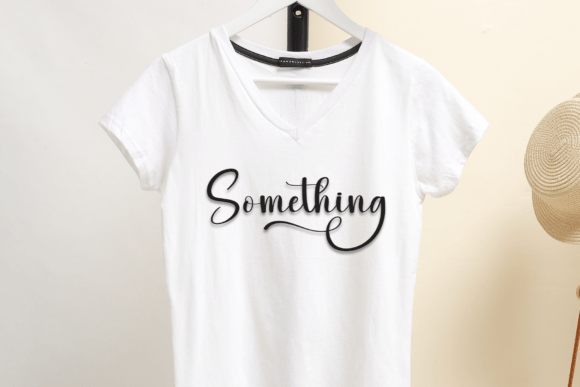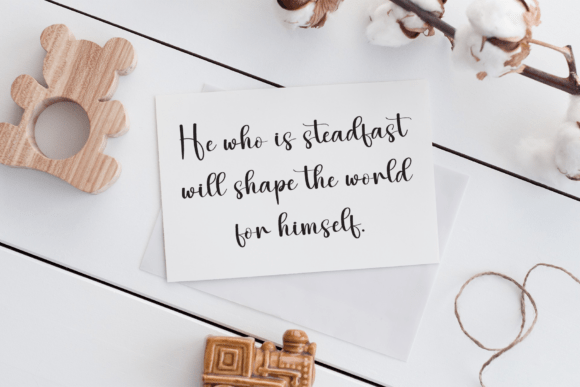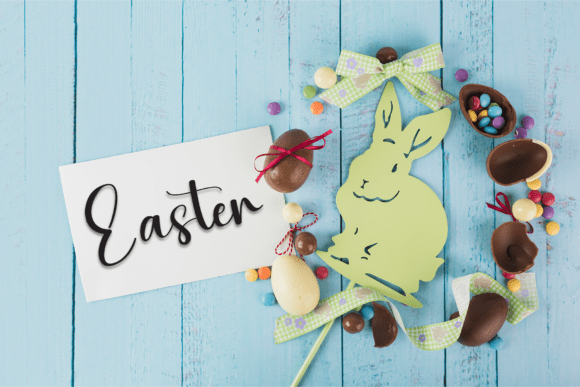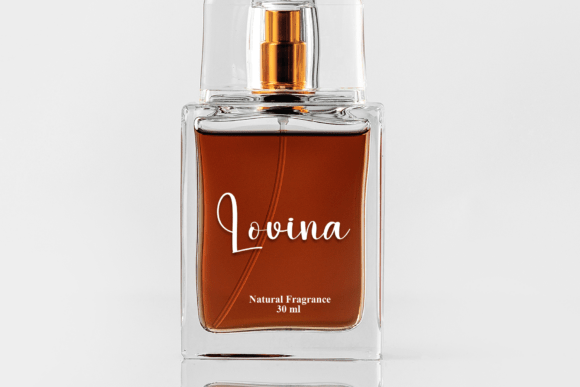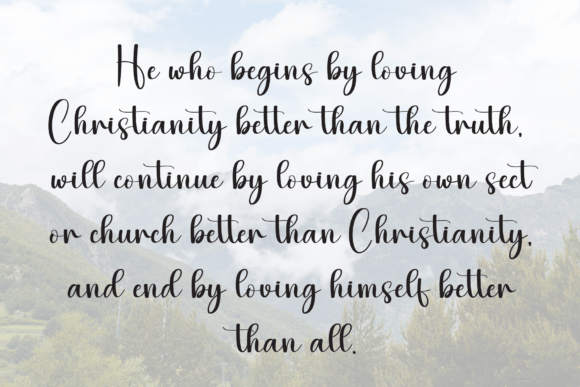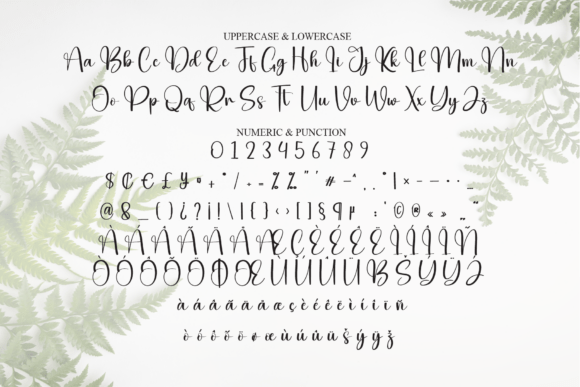
Add a Touch of Sophistication to Your Designs with Bristney Font
Are you looking for a font that can add a touch of elegance and sophistication to your designs? Look no further than Bristney Font, a beautiful script font with swashes that is perfect for creating romantic and luxurious visuals. With its graceful, flowing lines and beautiful beginning and ending swashes, this font is sure to take your designs to the next level.
What is Bristney Font?
Bristney Font is a elegant script font that features beautiful swashes at the beginning and end of each letter. This font is perfect for creating romantic and luxurious visuals, and is ideal for use in wedding invitations, branding projects, social media graphics, and handwritten quotes. The font’s flowing lines and swashes give it a sophisticated and refined look that is sure to impress.
Features of Bristney Font
- Elegant Script Font: Bristney Font is a beautiful script font with a elegant and refined look.
- Swashes: The font features beautiful beginning and ending swashes that add an extra flourish to your designs.
- Romantic and Luxurious: The font’s flowing lines and swashes give it a romantic and luxurious feel that is perfect for creating sophisticated visuals.
- Versatile: Bristney Font is perfect for use in a variety of design projects, including wedding invitations, branding projects, social media graphics, and handwritten quotes.
Uses for Bristney Font
Bristney Font is a versatile font that can be used in a variety of design projects. Here are some ideas for using this beautiful font:
- Wedding Invitations: The font’s romantic and luxurious feel makes it perfect for use in wedding invitations and other wedding-related design projects.
- Branding Projects: Bristney Font is ideal for use in branding projects, such as logos, business cards, and letterheads.
- Social Media Graphics: The font’s elegant and refined look makes it perfect for use in social media graphics, such as Facebook posts, Instagram graphics, and Twitter headers.
- Handwritten Quotes: Bristney Font is also perfect for use in handwritten quotes and other inspirational designs.
Tips for Using Bristney Font
Here are some tips for using Bristney Font in your designs:
- Use it sparingly: Because of its elegant and refined look, Bristney Font is best used sparingly. Use it as a headline font or for highlighting important text.
- Pair it with a sans-serif font: Bristney Font pairs well with sans-serif fonts, such as Arial or Helvetica. Use a sans-serif font for body text and Bristney Font for headlines.
- Experiment with swashes: The swashes on Bristney Font are one of its most beautiful features. Experiment with different swash combinations to add extra flair to your designs.
Bristney Font is a beautiful script font with swashes that is perfect for adding a touch of sophistication to your designs. With its elegant and refined look, this font is ideal for use in wedding invitations, branding projects, social media graphics, and handwritten quotes. Whether you’re a designer or a crafter, Bristney Font is sure to become a favorite in your font collection.